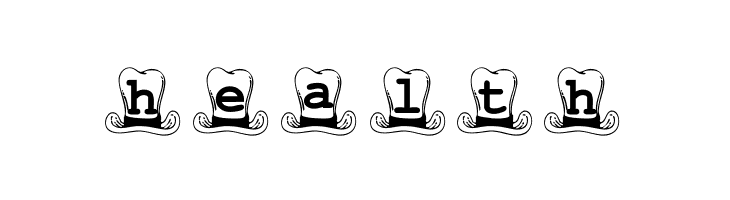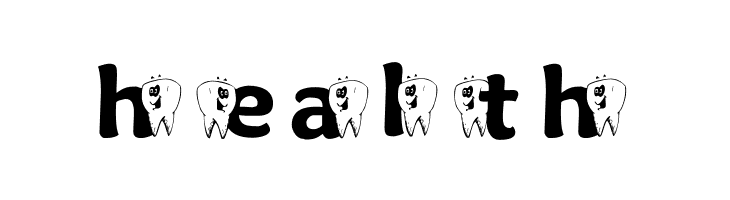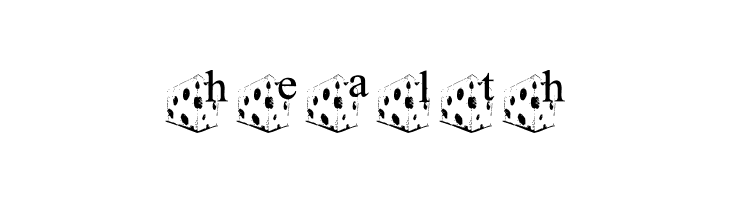
A playful and quirky font with bold, slightly condensed uppercase letters and whimsical lowercase letters.
A playful, whimsical font with bold uppercase and fluid lowercase characters.
A bold, playful font with eye-adorned uppercase letters and solid lowercase characters.
A bold, decorative font with ornate uppercase and traditional serif lowercase.
A playful font with animated uppercase letters and bold, clean lowercase characters.
A whimsical font with cartoon duck illustrations and ornate lowercase letters.
A whimsical font with fairy characters adorning each letter, combining outlined uppercase with bold lowercase styles.
An ornate and decorative font with intricate uppercase and outlined lowercase letters.
A whimsical font with mouse-themed uppercase and cheese-themed lowercase letters.
A whimsical font with owl-decorated uppercase letters and clean lowercase outlines.